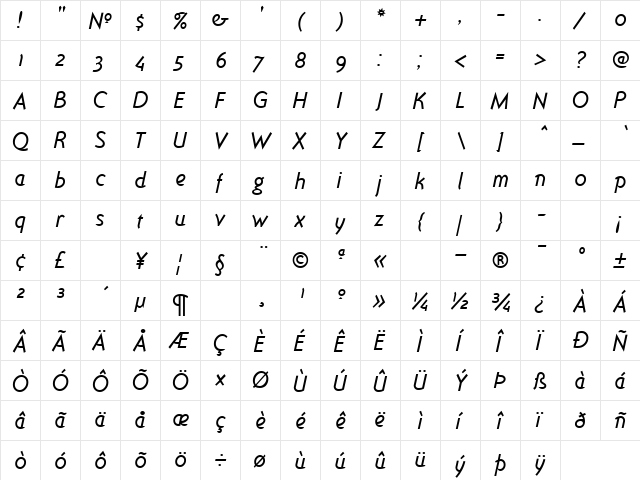
Ottomat Italic
Design Context for Ottomat Typeface
Ottomat takes a measured approach to typography — its balanced proportions and neutral character make it a reliable workhorse for both digital and print work. The slanted form adds forward momentum and visual energy.